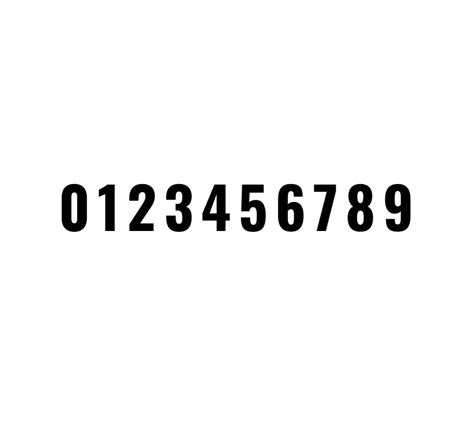
Oswald Font: A Guide To Its Use And Impact
Oswald Font: A Guide to Its Use and Impact
Hey guys, let’s dive into the world of typography and take a closer look at the Oswald font . This font has made quite a splash in the design world, and for good reason! This article aims to break down everything you need to know about the Oswald font, from its history and design to its practical applications. Whether you’re a seasoned designer, a student, or just someone curious about fonts, this guide is for you. We’ll explore its unique characteristics, its strengths, and how you can effectively use it to elevate your designs. Ready to get started? Let’s jump right in!
Understanding the Oswald Font
So, what exactly is the Oswald font? At its core, Oswald is a sans-serif typeface that was originally designed by Vernon Adams. Inspired by the classic style of the Alternate Gothic font, Oswald was created as a redesign for the web, intended to be used on screens of varying resolutions. Imagine a font that’s both modern and readable, perfect for headlines and body text. That’s Oswald! The beauty of Oswald lies in its simplicity and versatility. It’s clean, geometric, and designed to look great at different sizes. The font has undergone several updates and expansions, with contributions from Kalapi Gajjar and Cyrus Highsmith, ensuring that it remains relevant and useful in today’s digital landscape. Its consistent popularity speaks volumes about its effectiveness.
History and Development
The Oswald font journey began with Vernon Adams, who was driven by the desire to create a web-optimized version of the classic Alternate Gothic. Vernon’s vision was to make a font that could easily handle different screen resolutions, a challenge in the early days of the internet. The font was specifically designed with the limitations of web rendering in mind, ensuring that text would remain clear and crisp on various devices. Later on, Kalapi Gajjar and Cyrus Highsmith continued the work, expanding the font’s character set and improving its overall quality. This collaboration helped Oswald evolve from its original concept to become the versatile and widely-used font we know today. Vernon’s initial design, coupled with the contributions of Gajjar and Highsmith, resulted in a truly adaptable font.
Key Features and Characteristics
What makes the Oswald font stand out from the crowd? A few key features define its unique character. Firstly, it has a geometric structure that gives it a modern, clean look. Its letterforms are simple, with consistent strokes, making it incredibly readable, especially at smaller sizes. The font includes a broad range of weights and styles, making it flexible for various design needs. Its strong presence is perfect for headlines, while its readability makes it a solid choice for body text as well. The versatility of Oswald stems from its ability to convey clarity, style, and a touch of boldness all at once. It’s a workhorse of a font, capable of handling a wide variety of design challenges.
Best Practices for Using the Oswald Font
Alright, now that we know what Oswald font is all about, let’s talk about how to use it effectively. Proper use can really make your designs pop. It is all about maximizing its strengths while avoiding common pitfalls.
Typography Tips and Techniques
When using the Oswald font , consider these typography tips. Pairing it with another font is key. Since Oswald is strong, it’s best to pair it with a font that complements it without competing for attention. A good option is a more delicate serif font for body text, creating a nice balance. Play with font sizes and weights to create visual hierarchy. Use heavier weights for headlines to make them stand out, and lighter weights for body text to maintain readability. Spacing is crucial; make sure your line heights and letter spacing are optimized for readability. Don’t be afraid to experiment to find what works best. Always test your design on various devices and screen sizes to make sure the text remains clear and easy to read.
Common Design Applications
The Oswald font is super versatile, fitting perfectly in many design projects. It’s fantastic for website headlines because it’s bold and eye-catching. It also works great for print materials like posters, flyers, and brochures. Its clean design makes it perfect for branding , creating a modern and memorable brand identity. It’s also suitable for use in mobile apps , where readability is crucial. Think about using it for digital ads to grab attention quickly. The font’s adaptability makes it a go-to choice for a wide variety of design applications, both online and offline.
Avoiding Pitfalls
While Oswald is a great font, here are some things to avoid. Don’t overdo it! Using Oswald for everything can make your design look monotonous. It’s best used sparingly. Don’t use extremely small font sizes for body text, as this can make it hard to read. Avoid excessive use of bold weights in large blocks of text, which can be tiring for the eyes. Always ensure that the font contrasts well with the background color to maintain readability. By keeping these points in mind, you can harness Oswald’s full potential while avoiding common design errors.
Alternatives and Similar Fonts
Sometimes, you might want to explore other fonts. Let’s look at some alternatives that offer similar styles and characteristics.
Comparing Oswald to Similar Fonts
If you’re looking for alternatives to the Oswald font , here are a few suggestions. Open Sans is a great choice; it’s also a sans-serif font, known for its readability and versatility. Lato is another excellent option, offering a balanced and friendly feel, with clean lines, and great readability. Roboto is another strong contender, favored by Google, it’s versatile and works well in digital environments. Comparing these fonts, they share some common features with Oswald like a clean, modern aesthetic, but they each have unique aspects that can make them suitable for different projects. The best font depends on your specific design needs. It’s always good to experiment and see what works best for your project.
When to Choose Other Fonts
There are times when Oswald may not be the perfect fit. Consider other fonts if you want a softer or more elegant feel. If your project needs a font with a strong personality or a specific historical reference, you might consider other options. For highly stylized designs, you might explore fonts with more decorative elements. For very small text, you might need a font specifically designed for readability at tiny sizes. Remember, the goal is always to choose the font that best suits the purpose and tone of your project. Don’t be afraid to try different fonts until you find the perfect one!
And there you have it, folks! We’ve covered the ins and outs of the Oswald font . From its origins and design to its uses and alternatives, hopefully, you now have a solid understanding of why it’s such a popular choice. Remember, the key to using Oswald (or any font) is to understand its strengths and how to apply them to your specific design needs. Happy designing! Let your creativity flow and see how you can make the most of this awesome font! Keep experimenting, and don’t be afraid to try new things. Keep your designs fresh, modern, and aligned with your brand’s unique identity. And now, go forth and create something amazing!